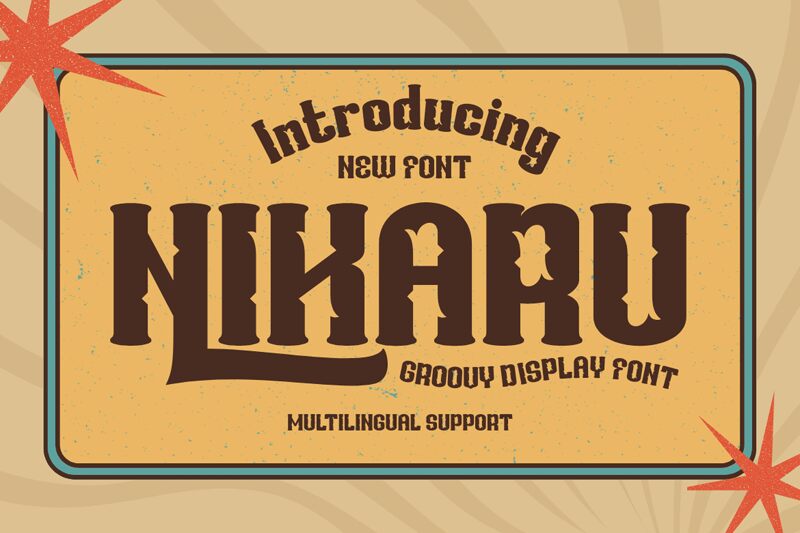
NIKARU-Regular
Nikaru font by Twinletter is a retro display typeface with vintage-inspired intense letterforms. Historical aura combined with strong presence brings suitable for branding or posters decorative elements to the table that wouldn’t be possible otherwise.
Free display Nikaru font can be put into use in logos, headlines, signage, banners, poster designing outfit branding, apparel printing, invitations, greeting cards and social media marketing. Other suitable cases include business cards and packaging that stands out from competition.